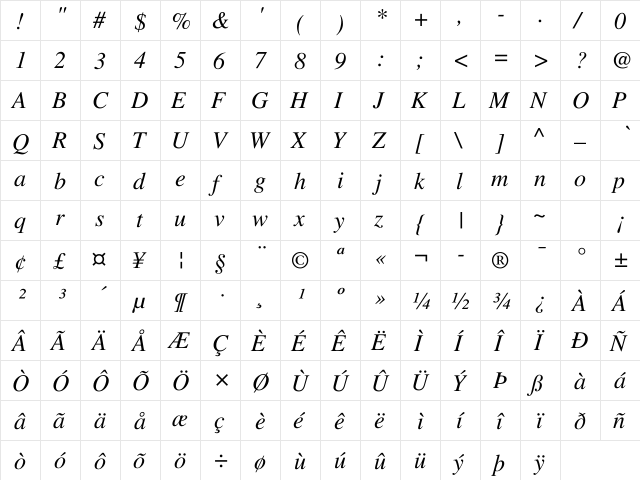
FreeSerif Italic
Design Context for FreeSerif Typeface
FreeSerif carries the refined structure of traditional serif typography, with bracketed terminals and considered proportions that communicate credibility and craft. Its italic angle brings a sense of urgency and motion to the letterforms.
Pro Tip: Set FreeSerif with slightly loose tracking in headlines to let each letterform's detail read clearly at display sizes.